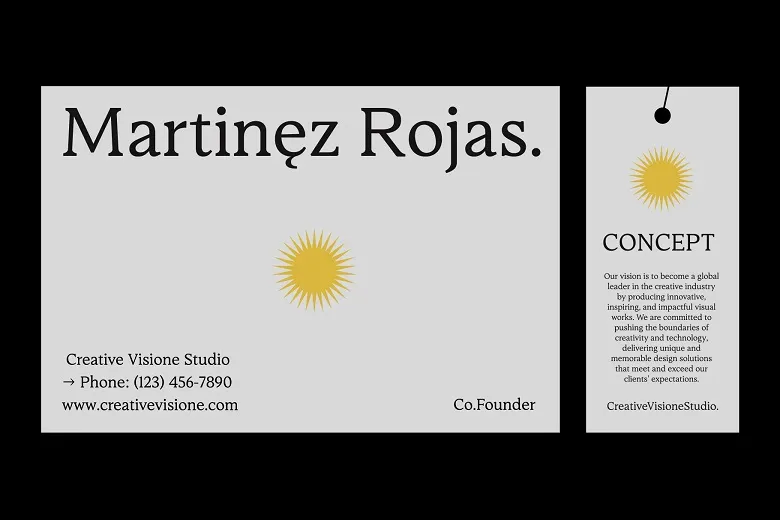
Plum
Plum is a free simple uppercase typeface that ideal for your design. Ideal for any typographic work like poster, print, headline, quote and more.
It is simple font which consist of letters, numbers and glyphs. The font come in 3 weights; light, regular and bold. Big thanks to Amy Cox; designer and typographer from the United Kingdom